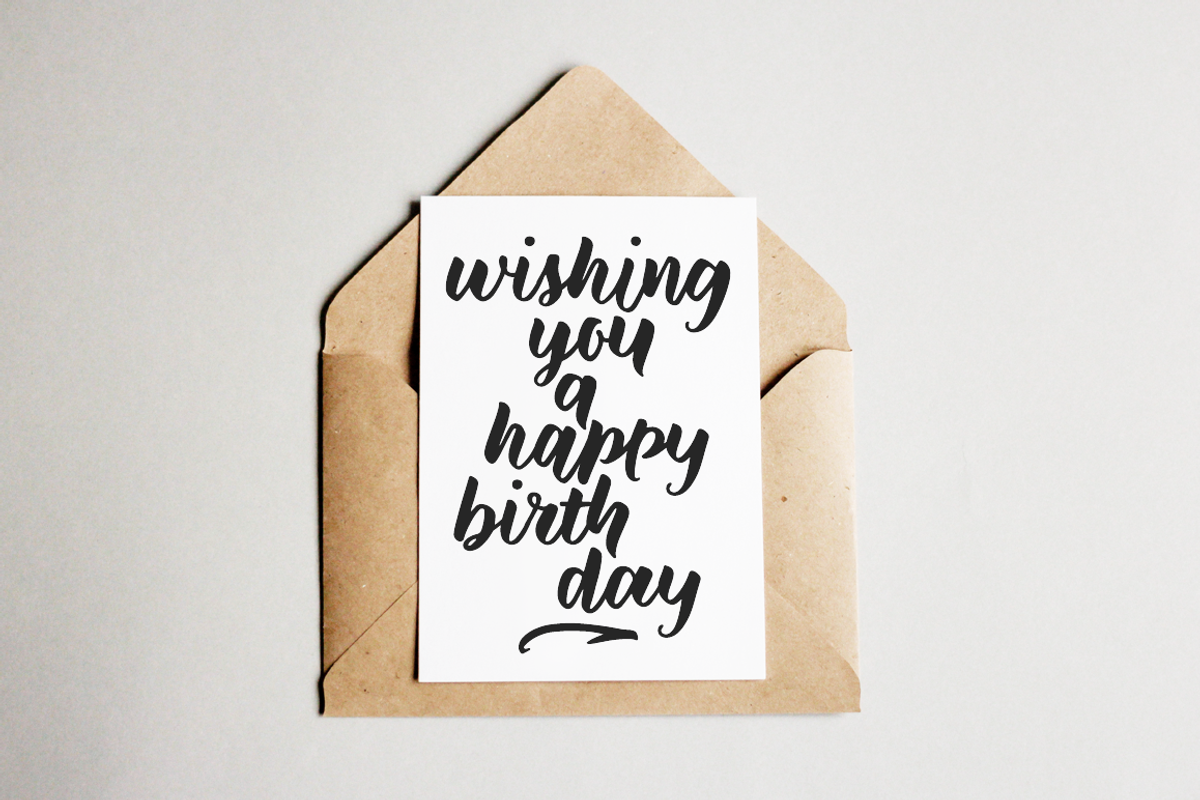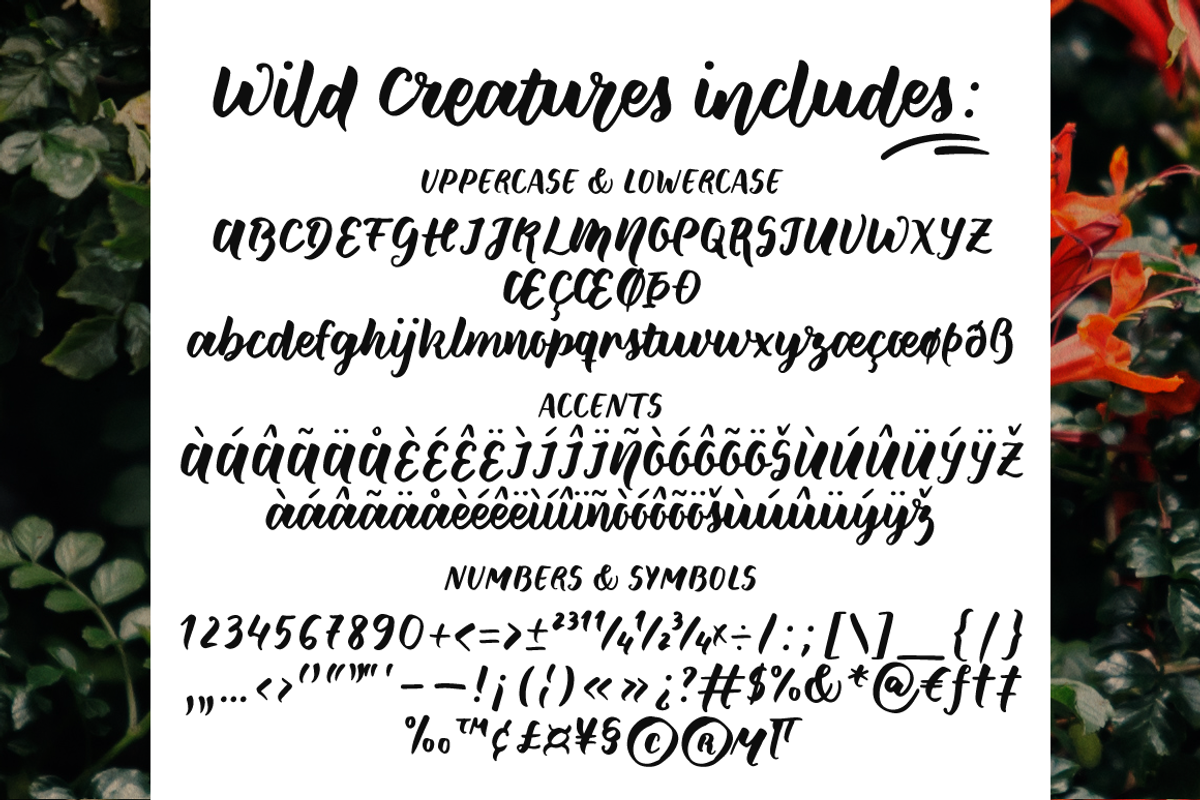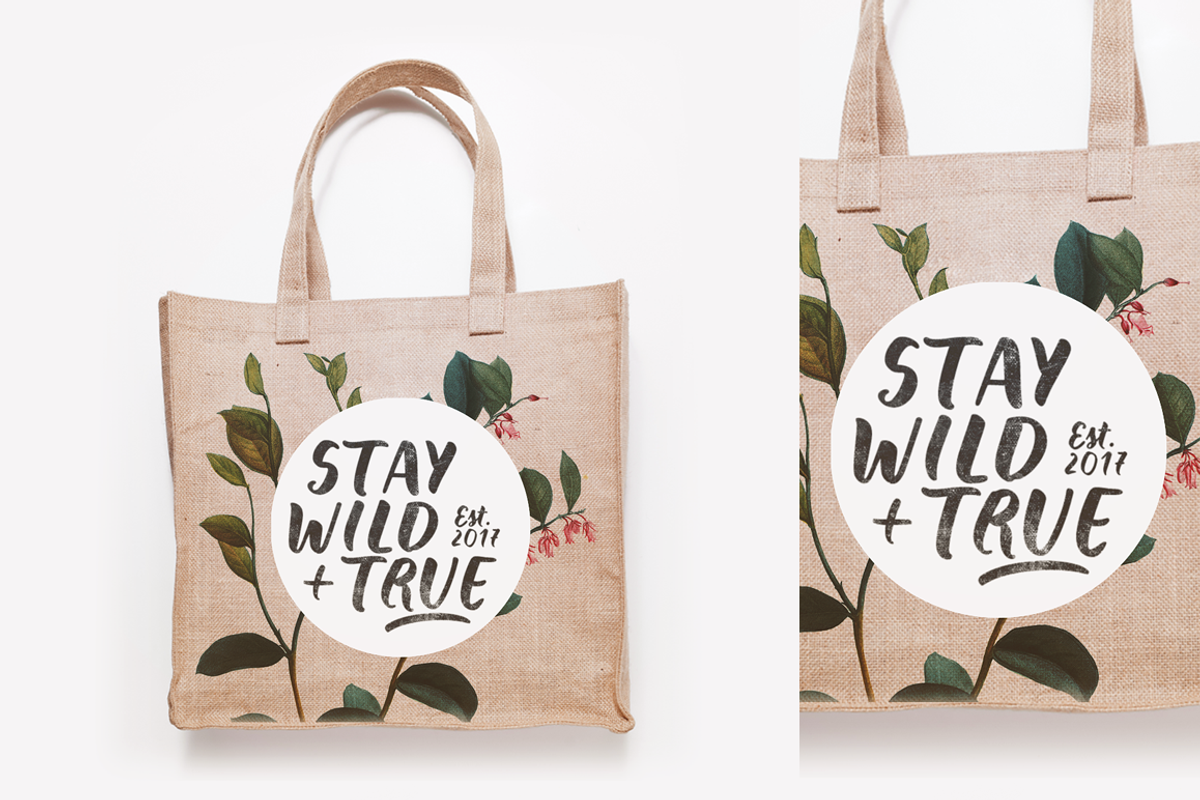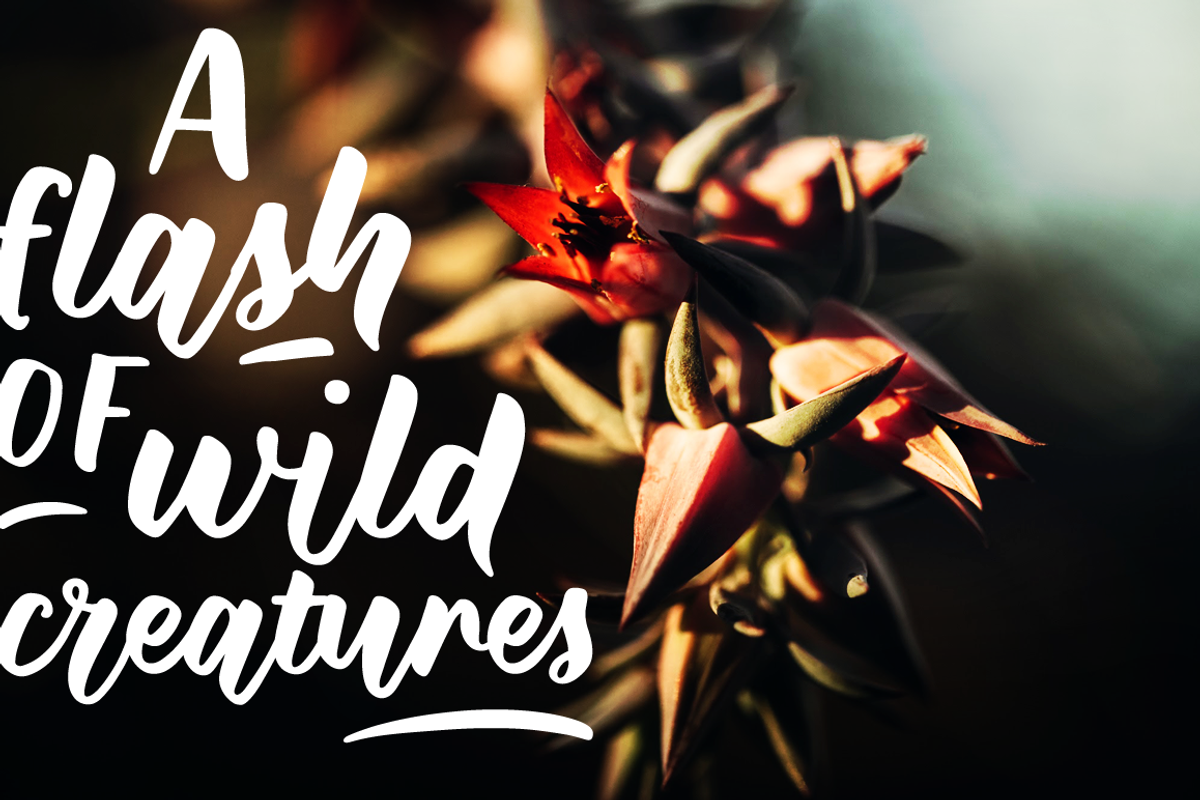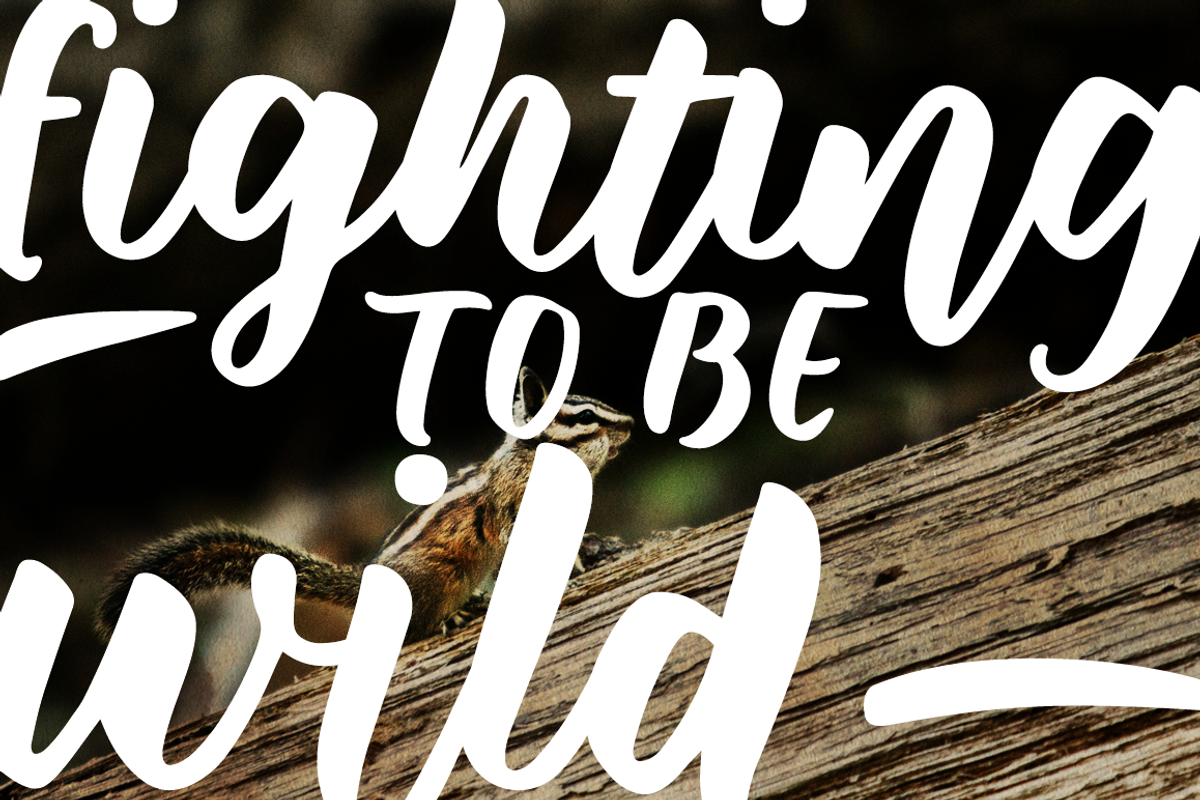
Wild Creatures brush font family
Wild Creatures brush font family by Ana's Fonts is a font selected for branding, posters, packaging, typography.
- Wild Creatures is a bold brush font, in three variations, with: A-Z, a-z, 0-9, accents, punctuation and symbols Ligatures All Caps alternate
Why Wild Creatures brush font family is worth a look
Wild Creatures brush font family by Ana's Fonts fits naturally into Branding, posters, packaging, typography.